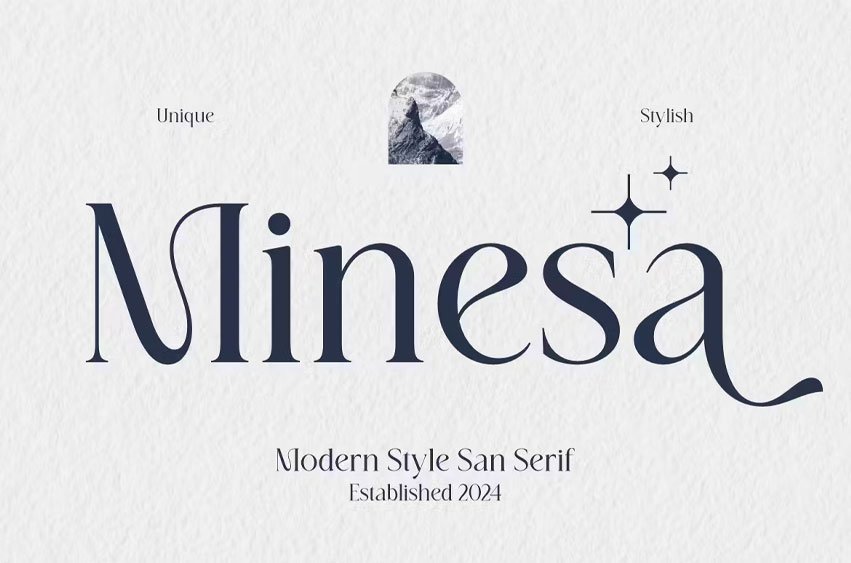
Minesa Font is collection of sSerif is perfect for personal branding. It was made with the intention to be used for your personal branding. But, this works well for many applications. Everything from personal branding, logos, name tag, handwritten quotes, product packaging, merchandise, social media & greeting cards. photography signature, advertising could benefit from this collection of these bold signature fonts.